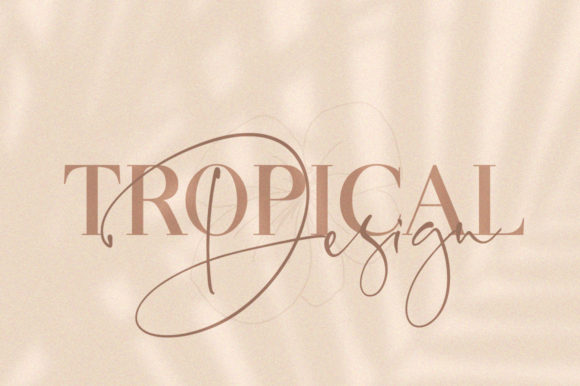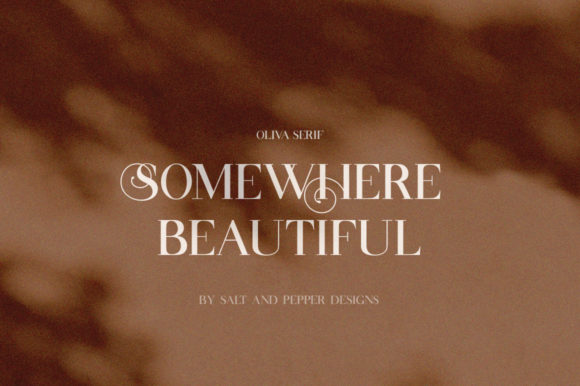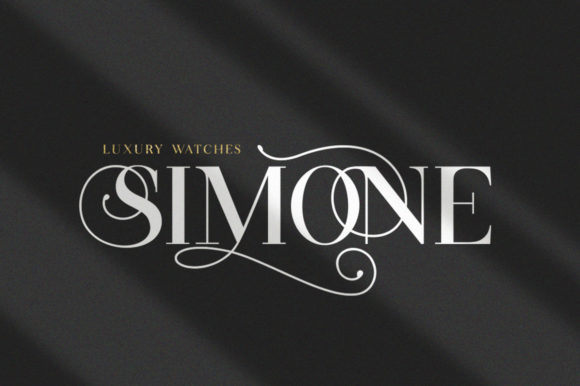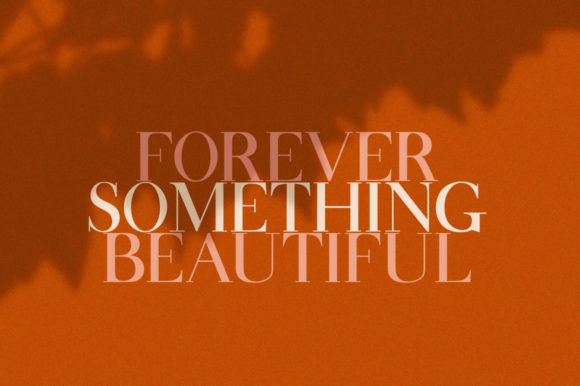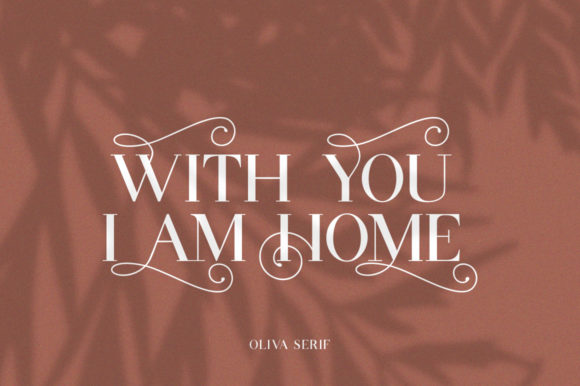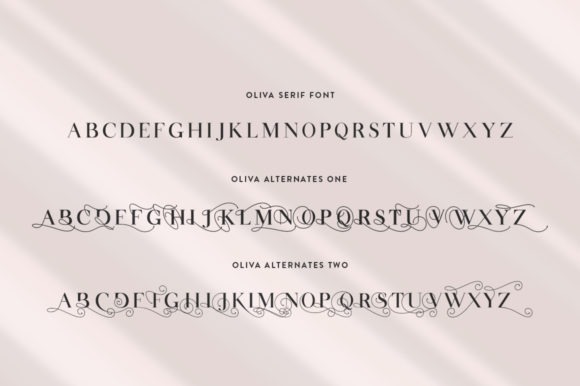
Introduction to Oliva Font
Have you ever stared at a blank canvas, waiting for inspiration to strike? The cursor blinks, taunting you with its silence. But then, a spark of creativity ignites, and the words begin to flow. For designers, moments like these are precious – a chance to bring a vision to life. And when it comes to adding the perfect touch, a high-quality font can make all the difference.
That’s where the Oliva Font comes in – a stunning serif font that effortlessly combines classic calligraphy with a modern twist. Its versatility is a game-changer for designers, making it an ideal choice for a wide range of creative projects, from elegant letterheads to beautiful stationery. And the best part? It’s available as a free download, making it an invaluable design resource for anyone looking to elevate their work.
Whether you’re working on a high-end branding project or simply want to add some sophistication to your personal stationery, the Oliva Font is sure to impress. With its transparent background and sleek design, it’s the perfect tool for anyone looking to add a touch of elegance to their work.
Key Features of Oliva Font
- High-quality, professional design for creative projects, including logos, graphics, and typography.
- Transparent background, making it easy to integrate with any design resource.
- Comes in 6 different font styles, each with unique characteristics to suit various design needs.
- Designed at 300 DPI resolution, ensuring crisp and clear display on high-resolution screens.
- Perfect for designers and artists working on creative projects, from print to digital media.
- Extremely versatile, allowing for both modern and classic design approaches.
Honest Review: Oliva Font
As a designer, I’m always on the lookout for high-quality fonts that can elevate my creative project. Recently, I had the chance to try out the Oliva Font, and I’m excited to share my thoughts with you.
- ✨ Elegant and modern design: Oliva Font has a beautiful, minimalist aesthetic that’s perfect for a variety of design projects.
- ✨ High-quality graphics: The font files are crisp and clear, even at small sizes.
- ✨ Transparent background: This feature is a game-changer for designers who need to work with complex backgrounds.
- ⚠️ Limited character set: Oliva Font only includes a standard set of characters, which may not be sufficient for more complex projects.
- ⚠️ No extended font family: If you’re looking for a comprehensive font family with multiple weights and styles, Oliva Font may not be the best choice.
Overall, I was impressed with the Oliva Font’s clean design and transparent background. It’s a great resource for designers who need a simple, yet effective font for their projects. And the best part? It’s available for free download, making it an excellent design resource for both personal and professional projects.
Tips for Getting the Most Out of Oliva Font
For the best results, use Oliva Font in conjunction with other high-quality design elements. Experiment with different font sizes, colors, and styles to create a unique look that complements your creative project.
Oliva Font is perfect for a variety of creative projects, including branding, advertising, and digital art. Its elegant and sophisticated design makes it an excellent choice for any high-quality project that requires a touch of sophistication.